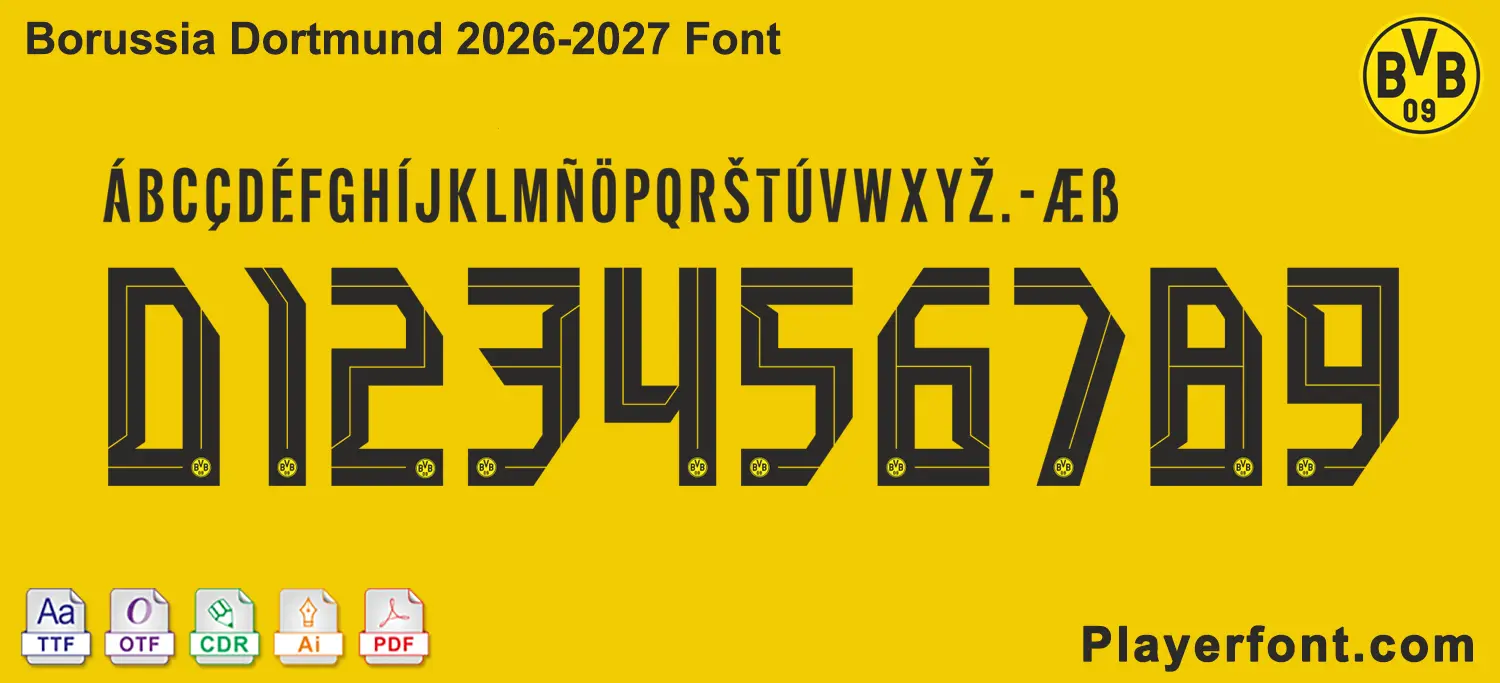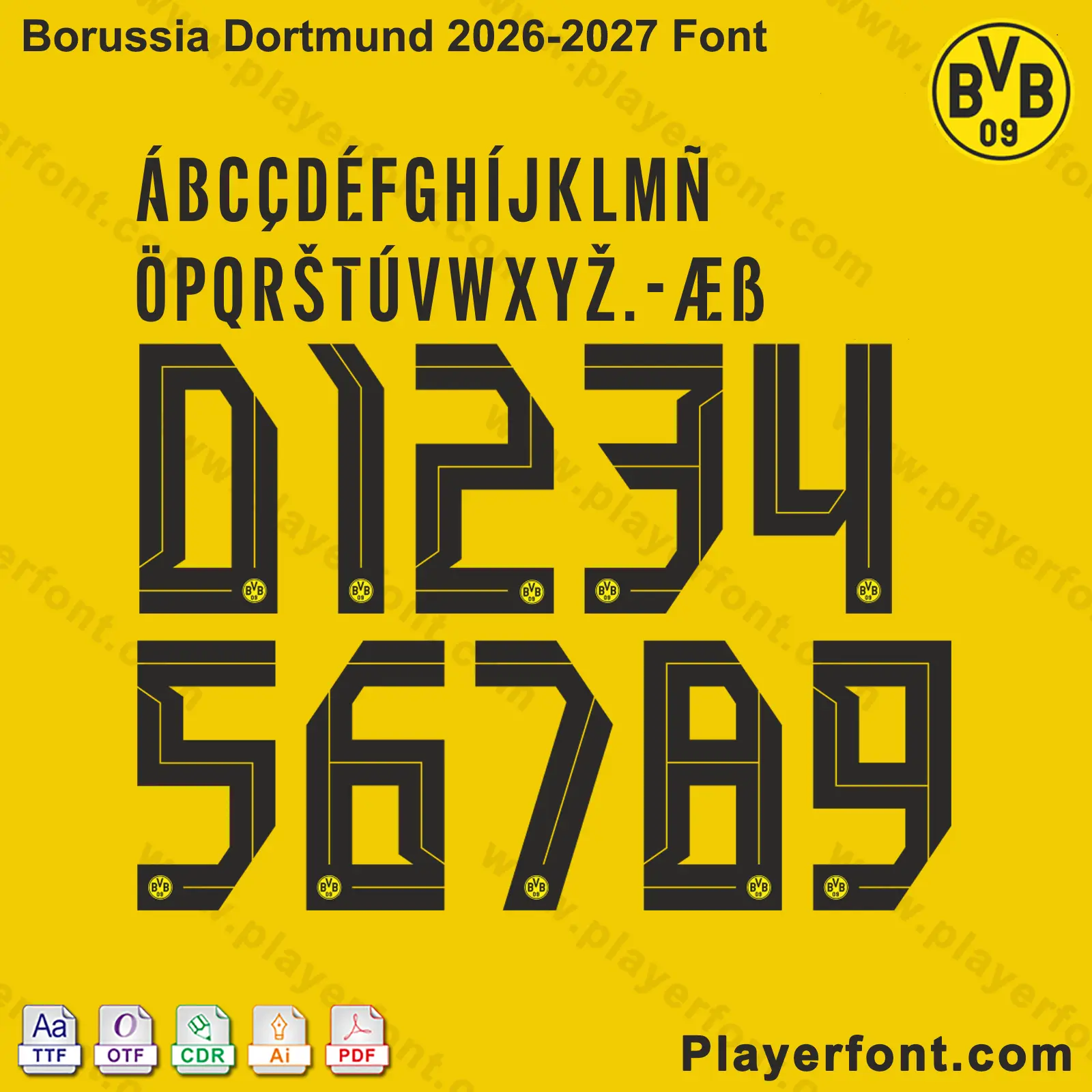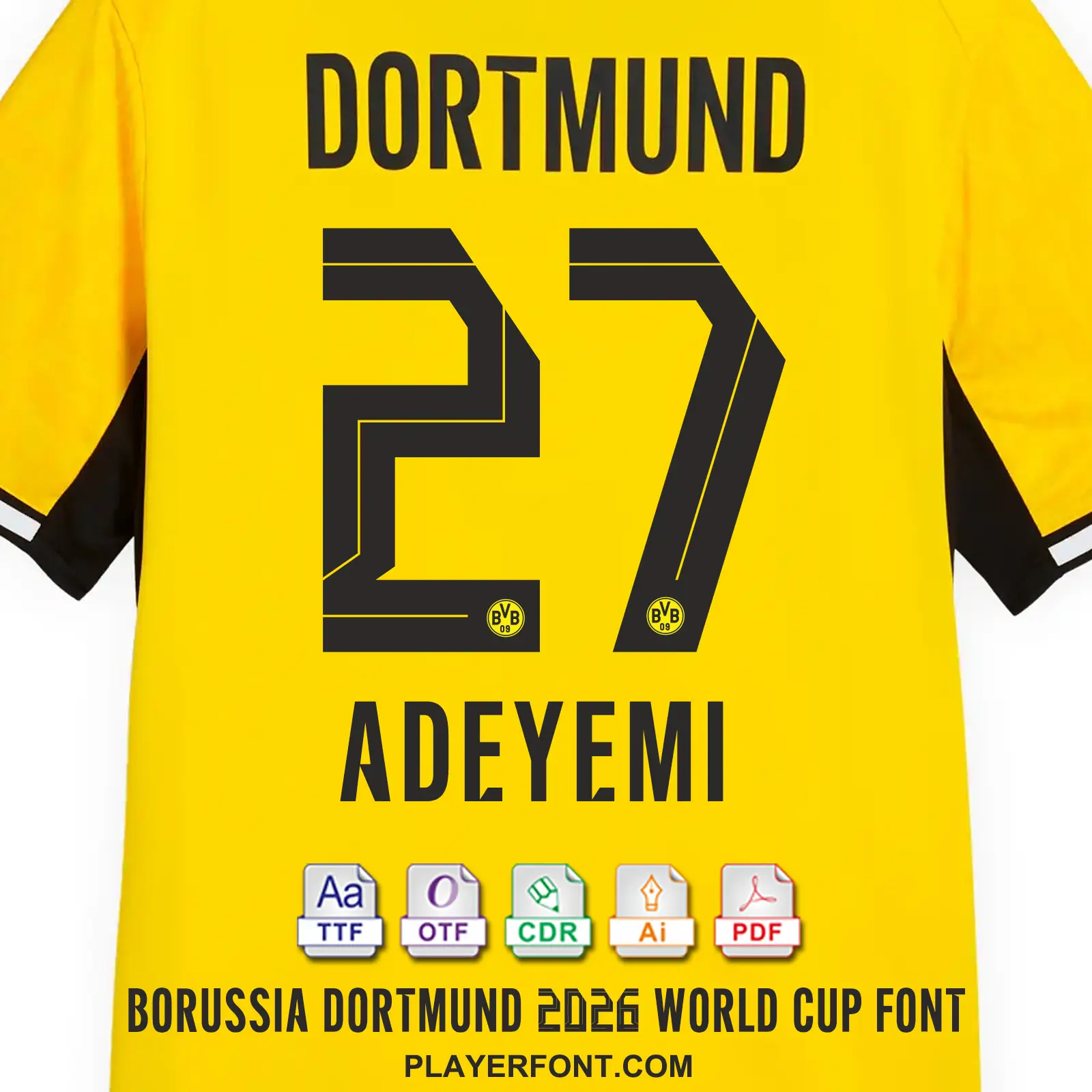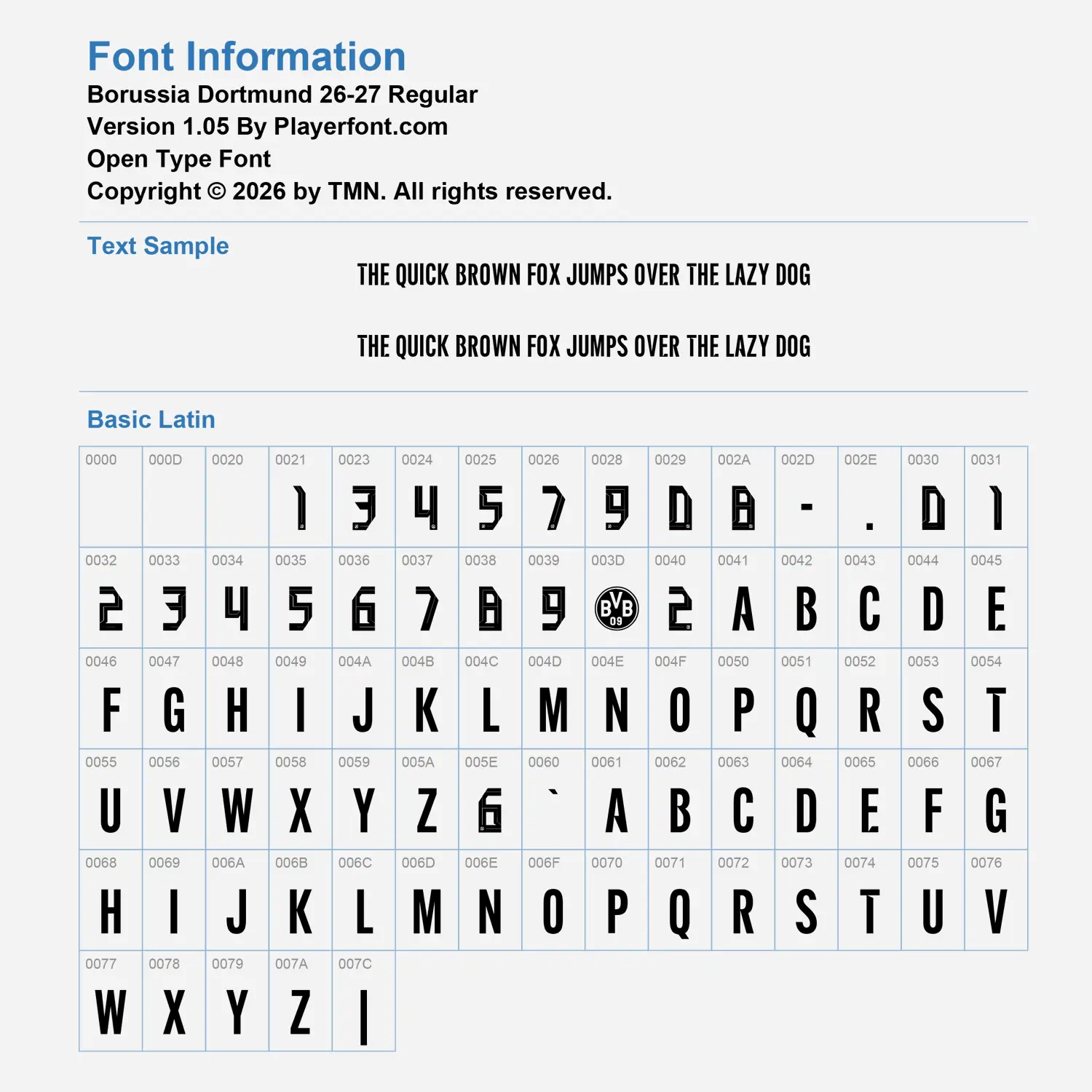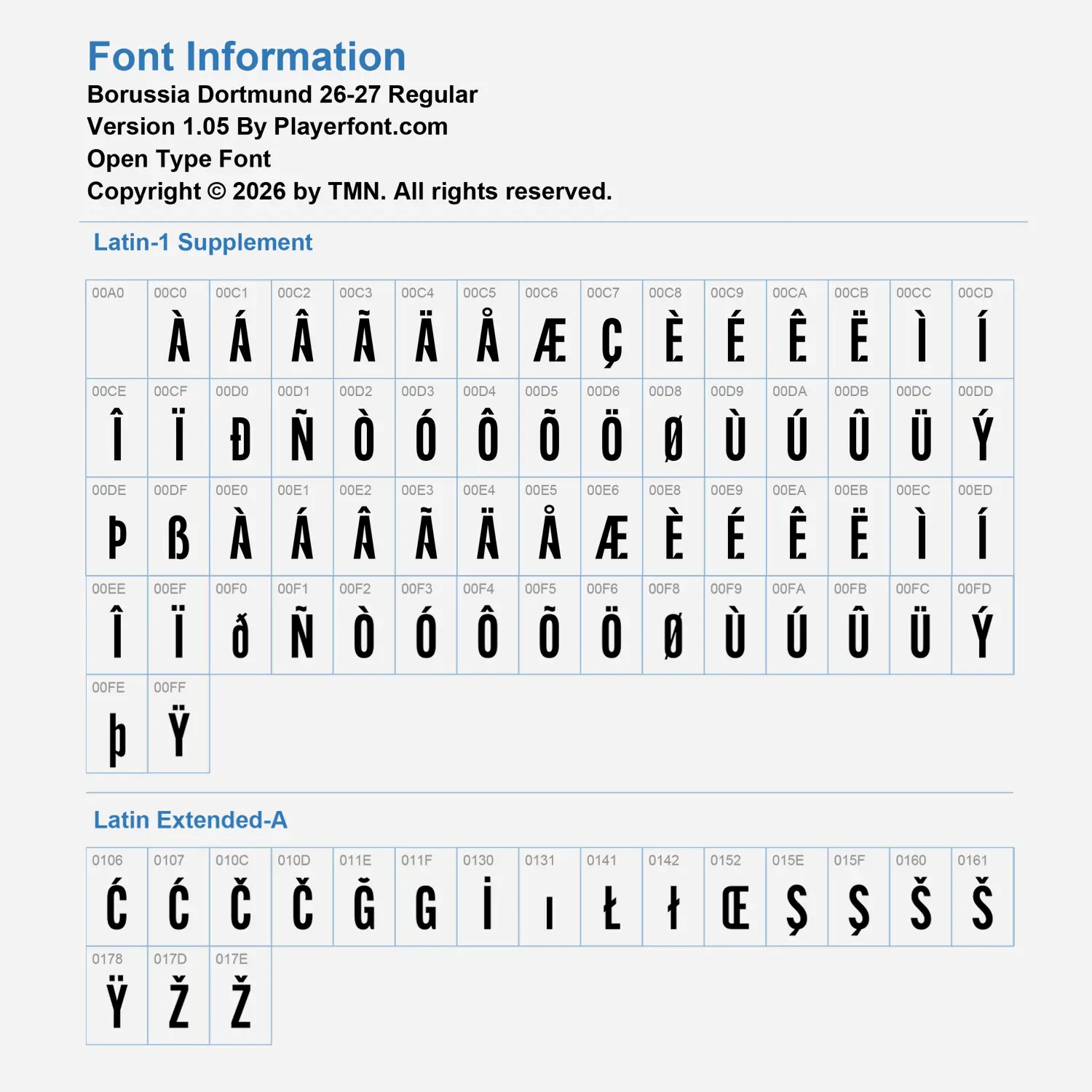
Elevate your sports design projects with the Borussia Dortmund 2026-2027 Font Download. This font captures the bold, modern, and iconic identity of BVB for the upcoming season, featuring the unique geometric lines and integrated club crest details seen in the official numbering.
Full Character Set: Includes uppercase letters, numbers 0-9 with the BVB logo detail, and basic punctuation.
Multilingual Support: Latin-1 Supplement and Extended-A characters for international player names (e.g., characters with accents).